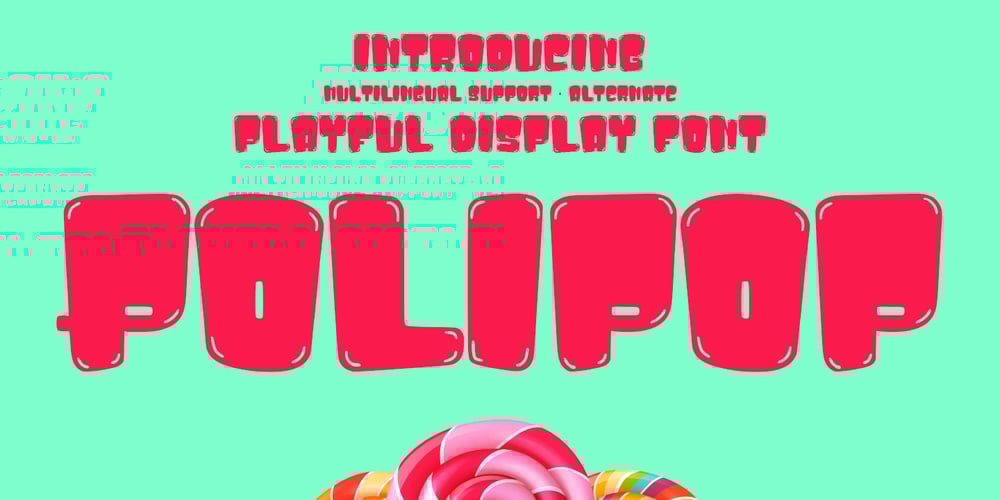
Polipop Playful Display Font Font Family was designed by Gilang Maulana and published by Maulana Creative. Polipop Playful Display Font contains 1 styles and family package options. Polipop playful display font. Bold stroke, fun character with a bit of ligatures and alternates. To give you an extra creative work. Polipop playful display font support multilingual more than 100+ language. This font is good for logo design, Social media, Movie Titles, Books Titles, a short text even a long text letter and good for your secondary text font with script or serif. Make a stunning work with Polipop playful display font.Cheers,Maulana Creative